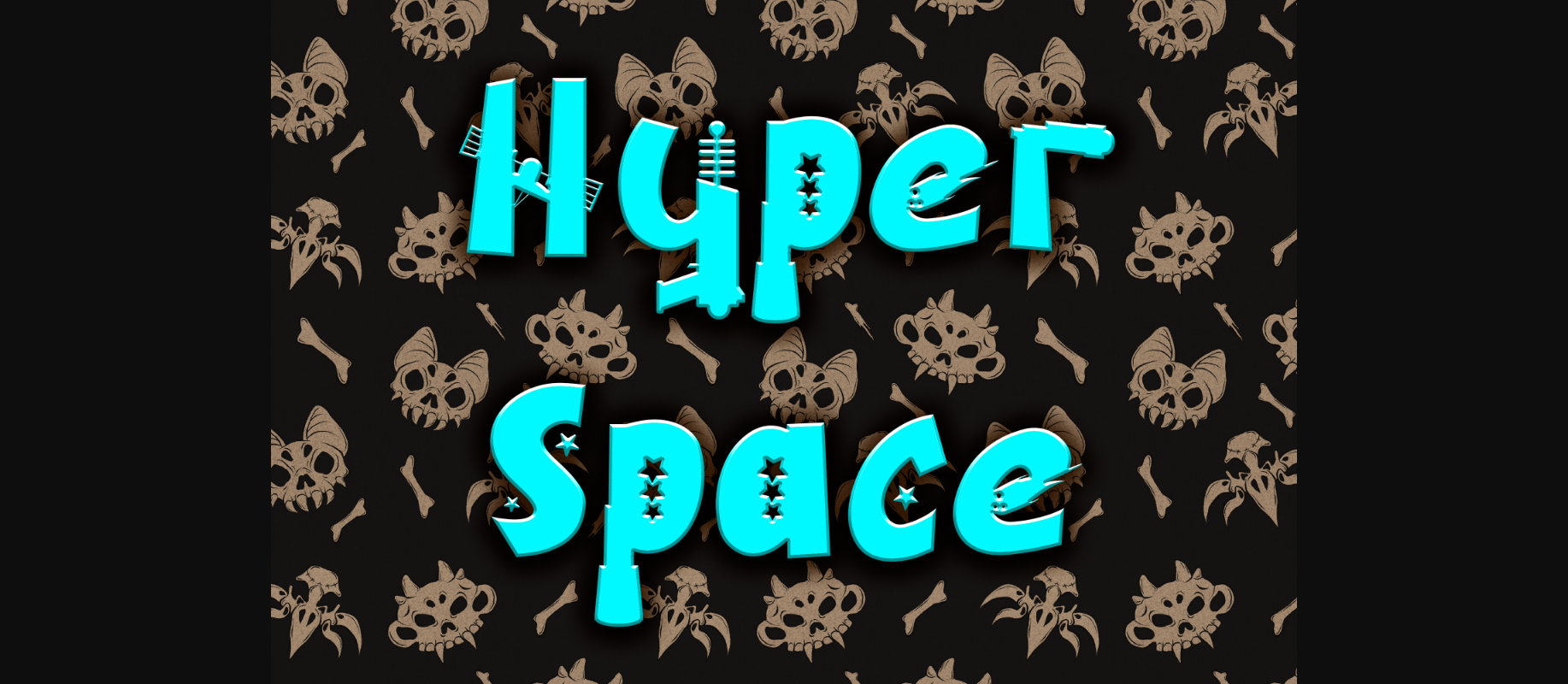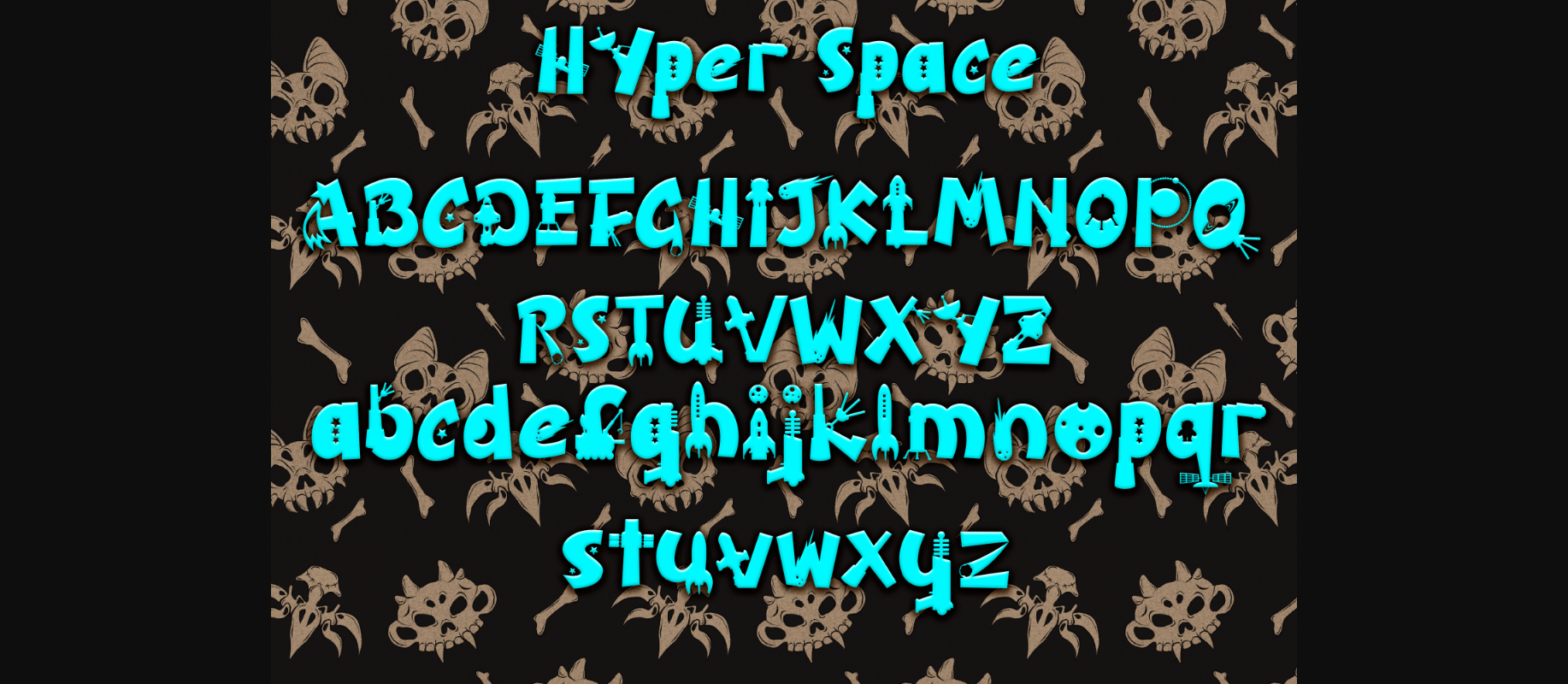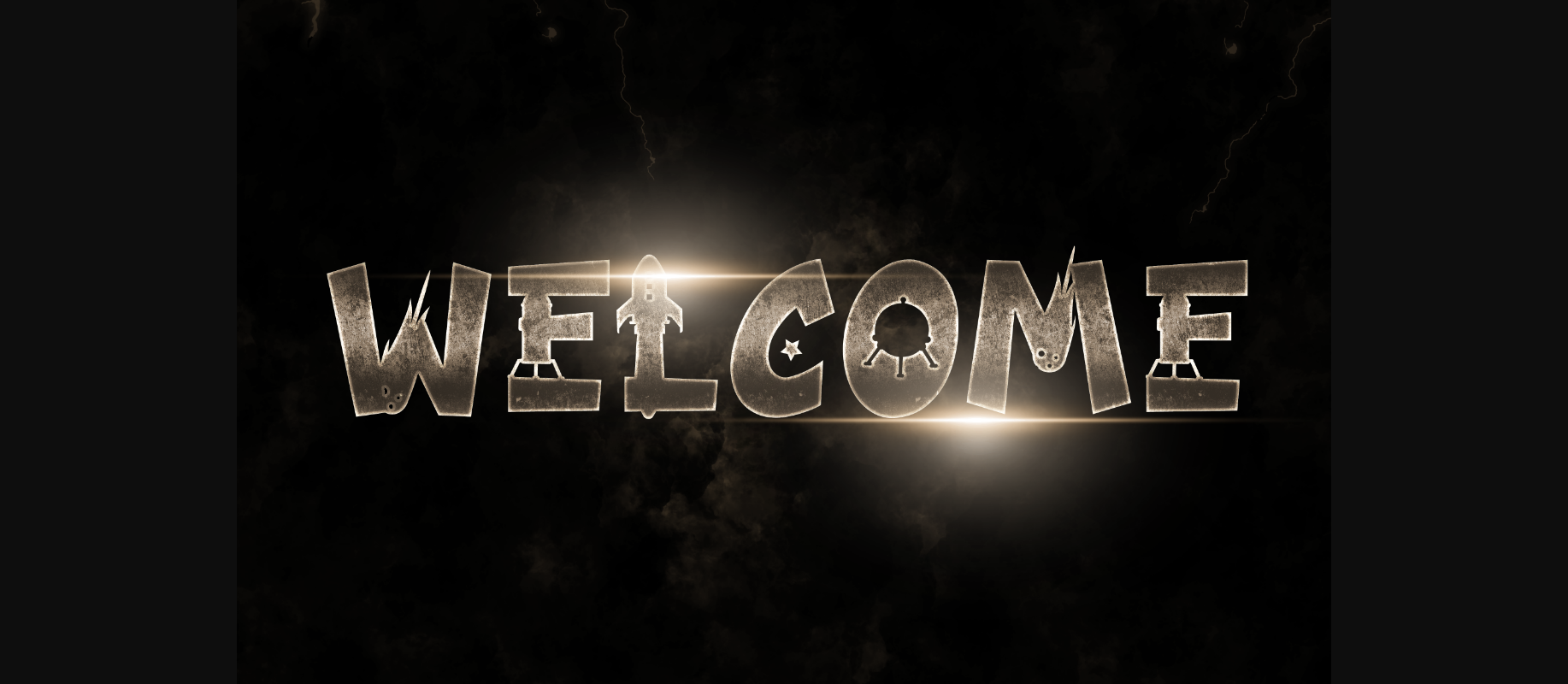
Hyper Space Font
About Hyper Space Font
Hyper Space font is an out-of-this-world typeface that takes your designs on an intergalactic journey. With its cosmic-inspired characters and futuristic flair, this font adds a touch of space-age creativity to your projects. Perfect for giving your text a celestial twist in posters, sci-fi themes, or anything that aims to reach for the stars!